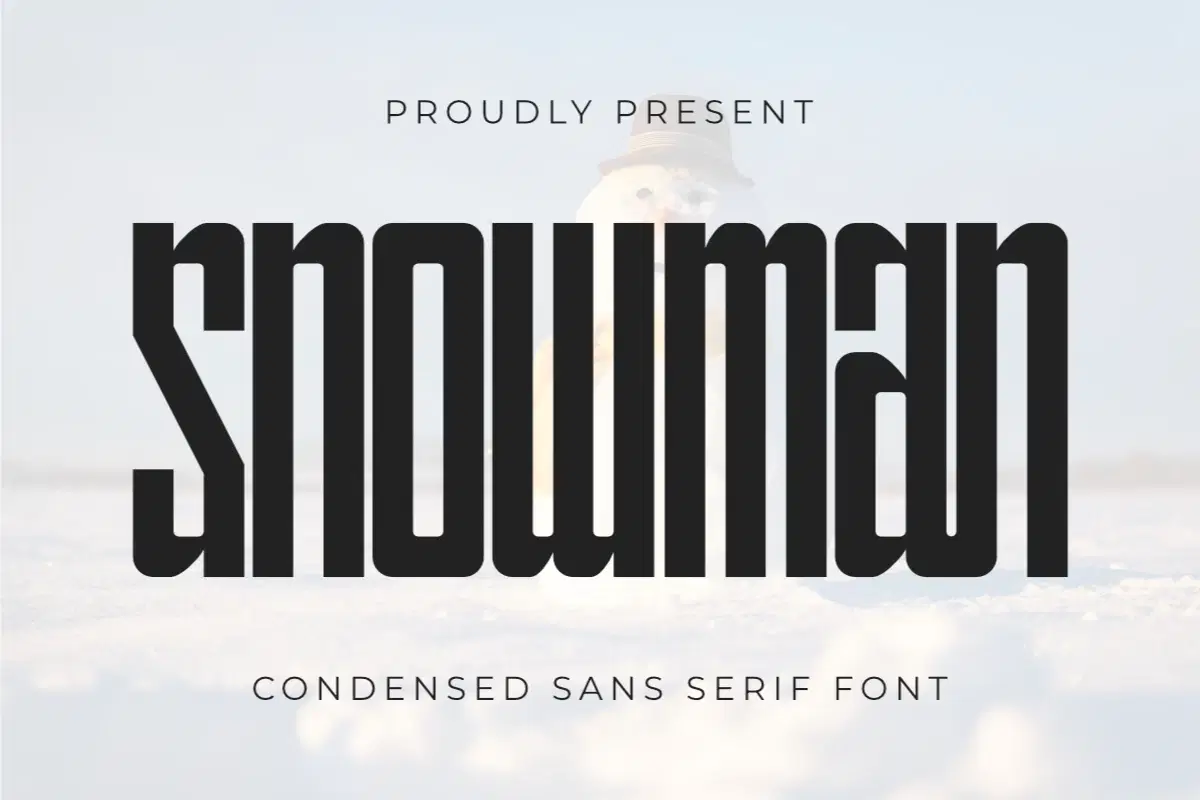
Snowman - Condensed Sans Serif Font
Snowman is a unique condensed sans serif font that blends clean, modern lines with a playful and distinctive touch. Its tall, narrow, and rounded design makes it stand out, creating a cozy yet contemporary feel. This display font is ideal for Christmas and winter-themed projects, but its versatile nature also makes it perfect for branding, logos, and packaging that requires a font with a friendly and memorable personality. Its unique character set is both legible and eye-catching.